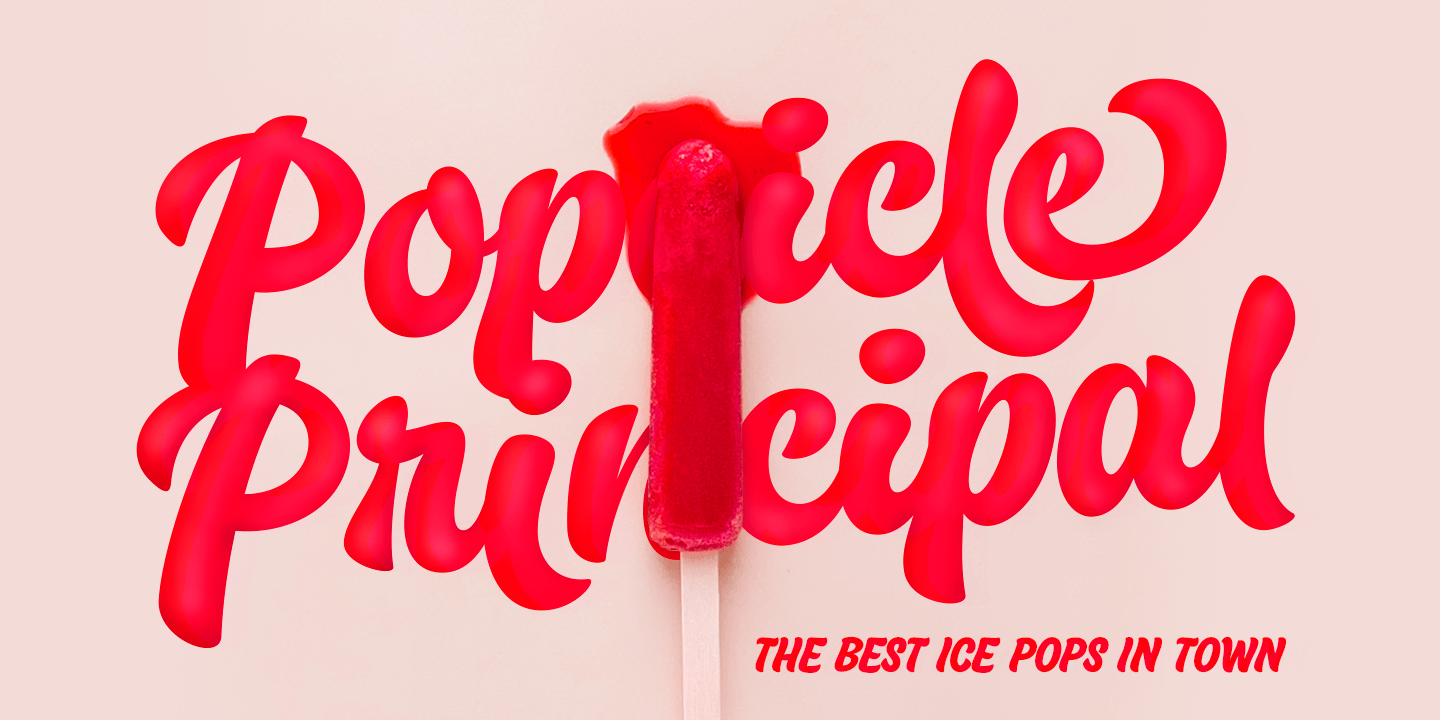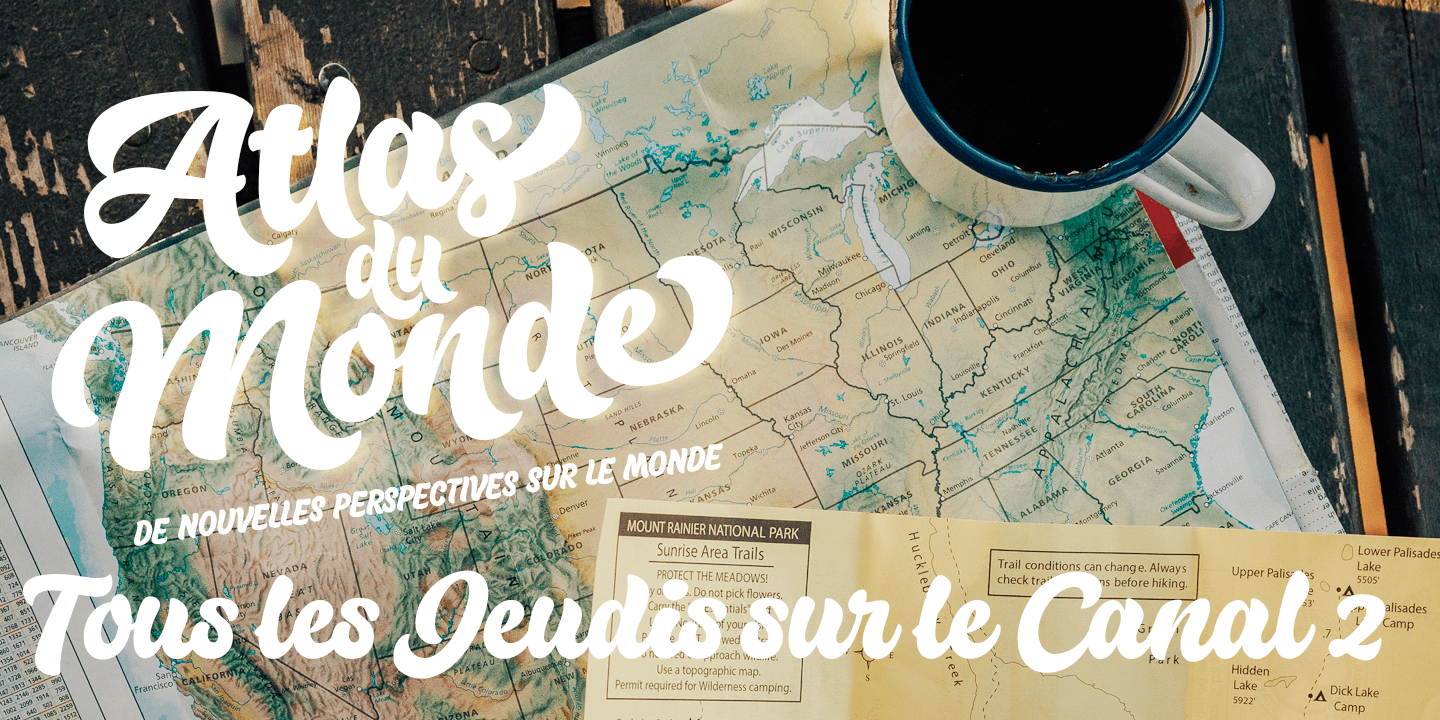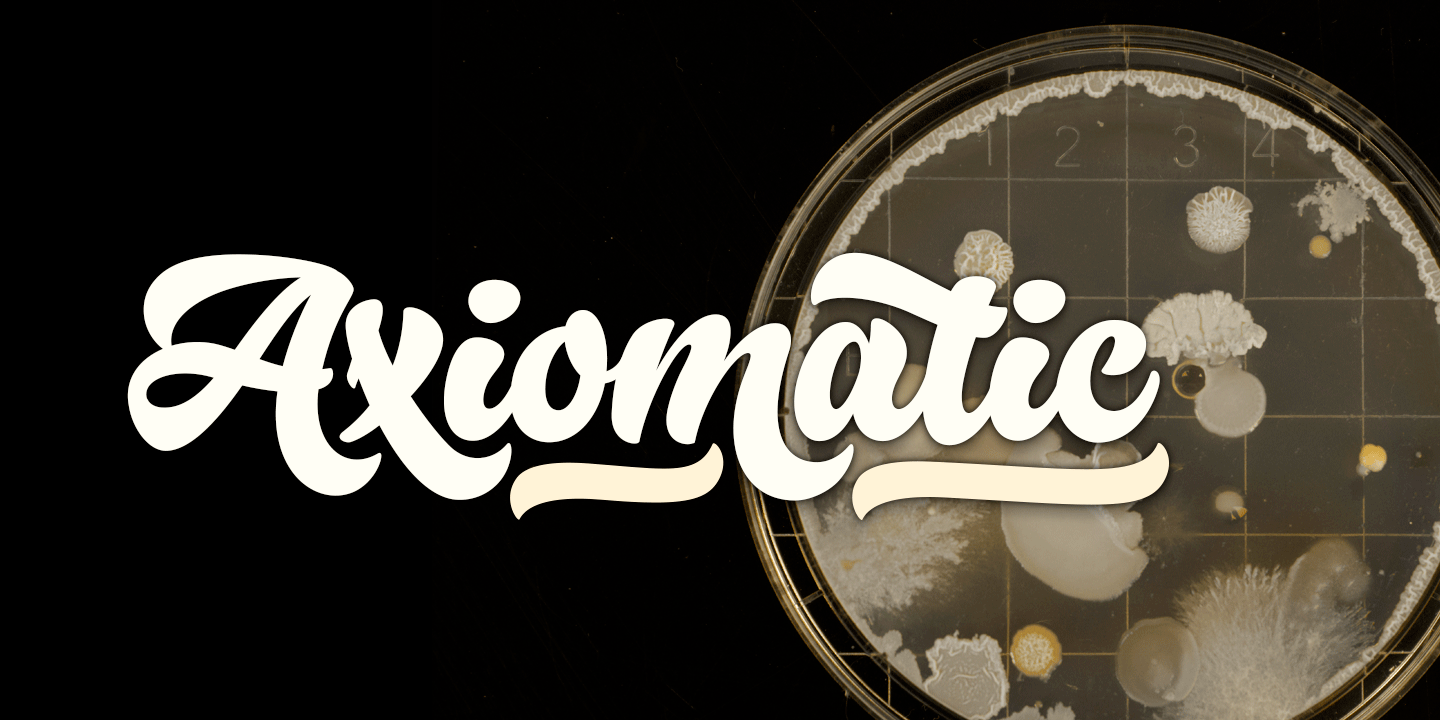
About Milky
Milky is a brisk Brush Script with smooth and bold characters. Milky is both legible and characteristic. It\’s strong and friendly, perfect for logotypes, packaging and other branding use. In addition to Milky Brush Milky family contains Milky Casuals…